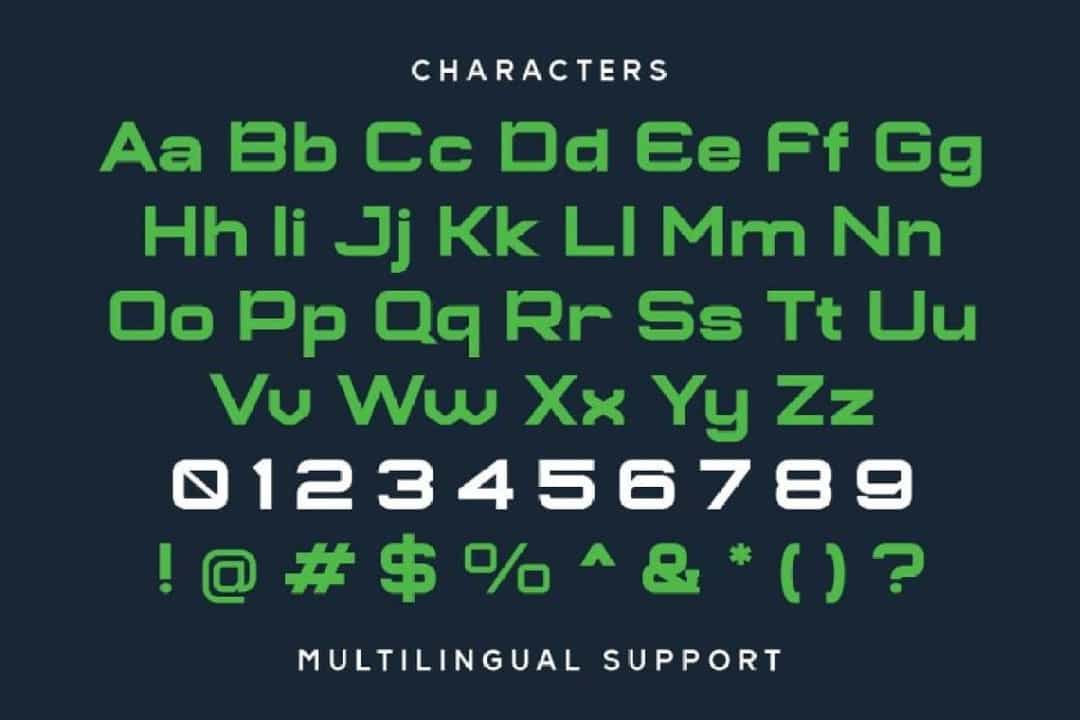
Plutonian is a font design inspired by space plane concepts and is available in three weights that are ideal for logo title use, titling, magazine cover headlines, power point and signs.